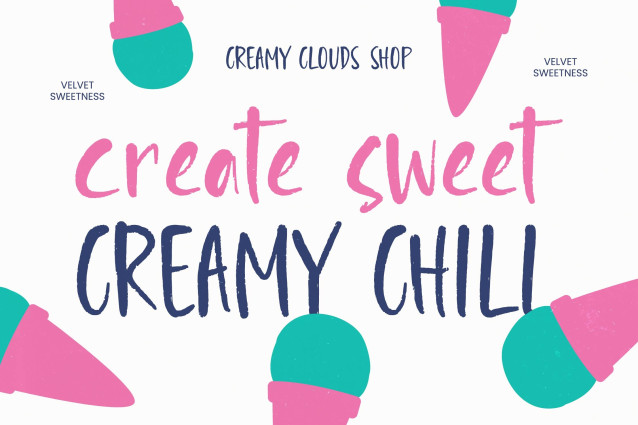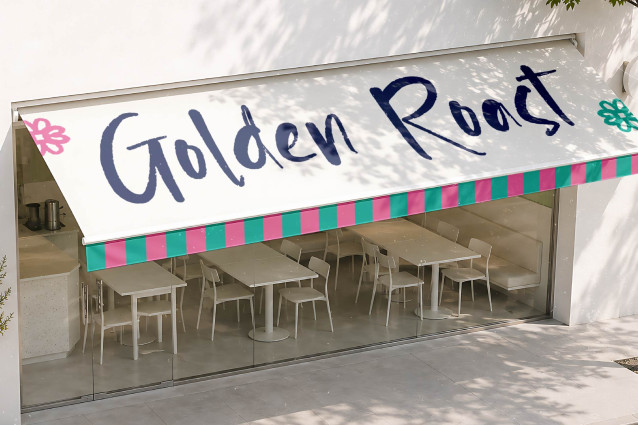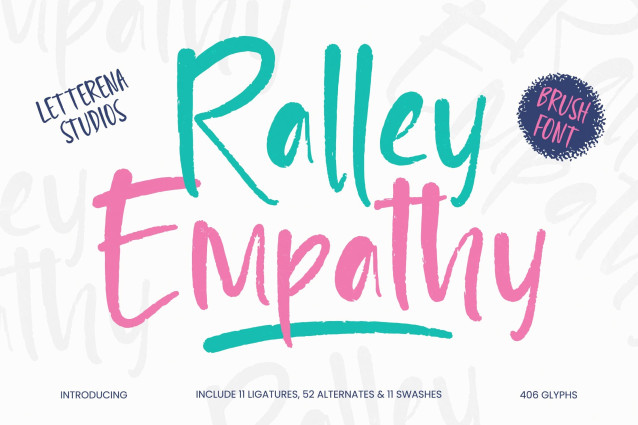
Ralley Empathy – Brush Font
Elevate your creative projects with an authentic touch using a typeface that commands attention. Ralley Empathy – Brush Font is a masterfully crafted brush script that captures the raw energy and fluid movement of hand-painted strokes. Its hand-drawn aesthetic provides an organic feel that resonates with modern audiences seeking authenticity and warmth. By blending artistic flair with professional execution, Ralley Empathy – Brush Font stands out as a premier choice for designers looking to inject personality and a bold visual impact into their digital and print compositions.
Unleash limitless creativity with a comprehensive glyph set designed for maximum flexibility. This dynamic brush script offers an impressive library of 406 glyphs, including 11 custom ligatures and 52 stylistic alternates that allow for truly bespoke typography. With its extensive multilingual support, Ralley Empathy – Brush Font adapts seamlessly across global markets, making it incredibly versatile for international projects. Whether you are crafting a local boutique campaign or a worldwide brand identity, Ralley Empathy – Brush Font ensures your message remains legible and impactful in any linguistic context.